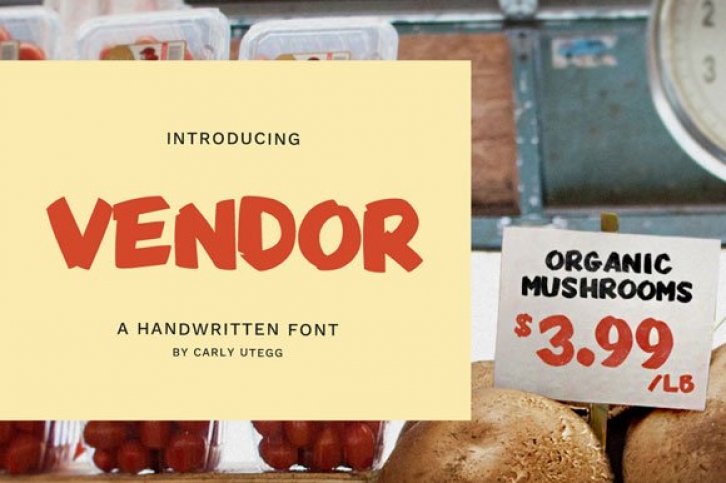
Introducing Vendor Handwritten Font
Vendor is a handwritten font created exclusively for the Arsenal by Go Media designer Carly Utegg. Use Vendor when creating signage, posters, branding, and much more.
Uppercase letters, punctuation and numerals